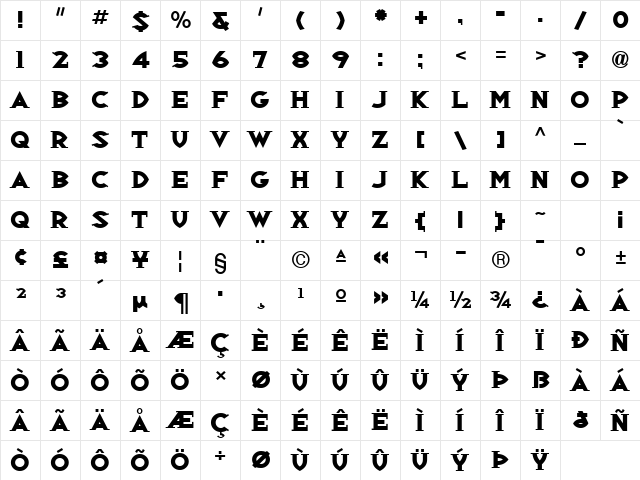
Republik Serif ICG 02 Regular
Design Context for Republik Serif ICG 02 Typeface
Republik Serif ICG 02 carries the refined structure of traditional serif typography, with bracketed terminals and considered proportions that communicate credibility and craft.
Pro Tip: Set Republik Serif ICG 02 with slightly loose tracking in headlines to let each letterform's detail read clearly at display sizes.